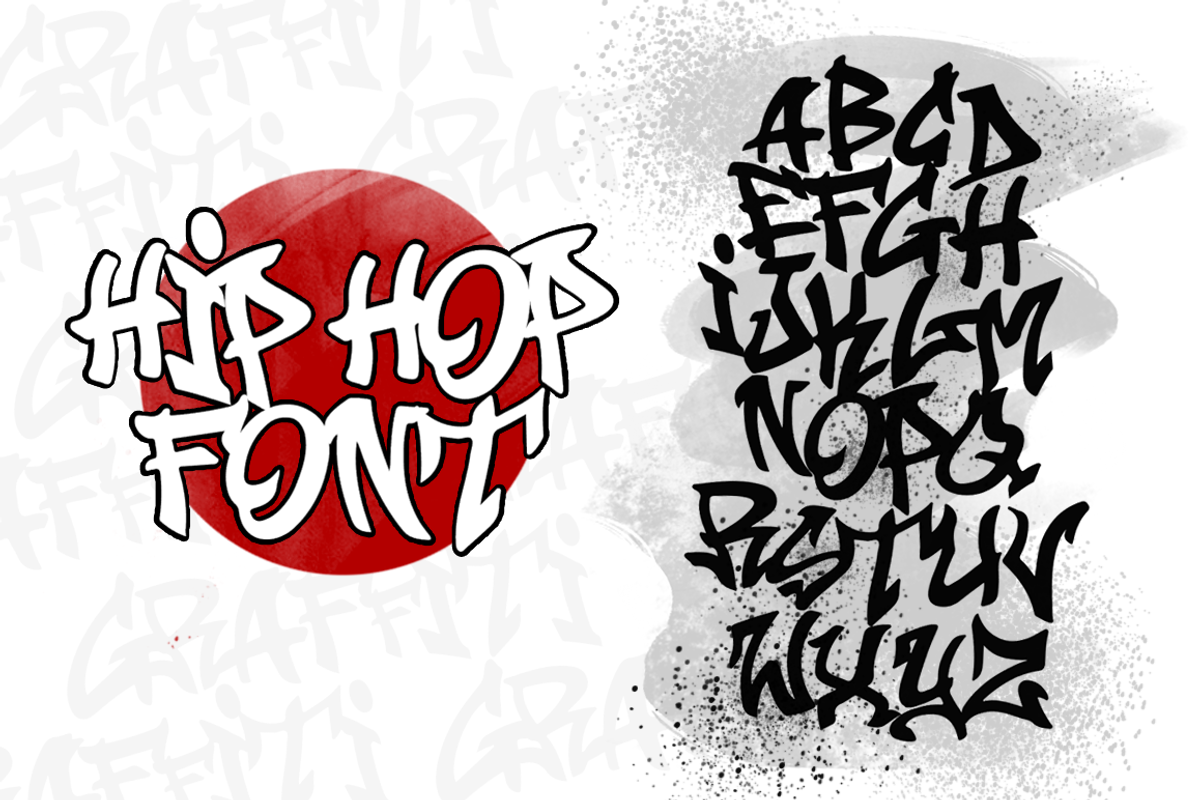
Samurai Hip Hop Font Free Download is a bold graffiti-style typeface that fuses urban street culture with the spirit of ancient warriors. Featuring sharp strokes, dynamic motion, and a rebellious attitude, this font is perfect for album covers, streetwear designs, rap event flyers, YouTube thumbnails, and graffiti-inspired branding.
It brings the raw energy of hip hop and the power of samurai tradition into a single striking design. Whether you're crafting underground visuals or bold brand statements, Samurai Hip Hop delivers edge and personality. Samurai Hip Hop Font Free Download gives you the chance to try its fierce style in personal projects before securing a commercial license.
Unleash honor and hustle with Samurai Hip Hop — the graffiti font where ancient spirit meets modern street.